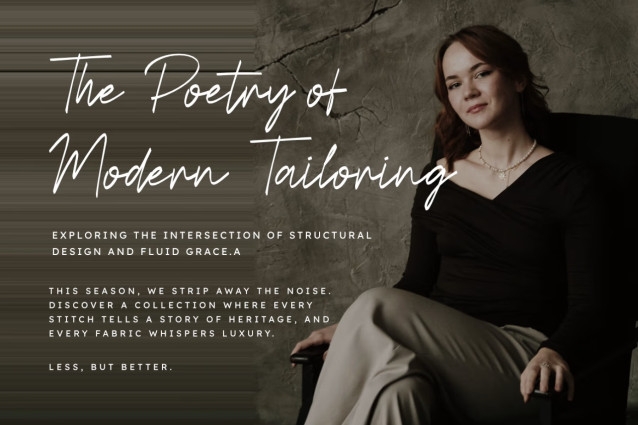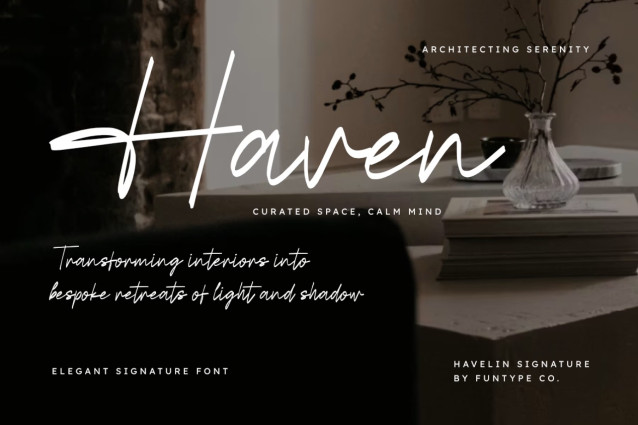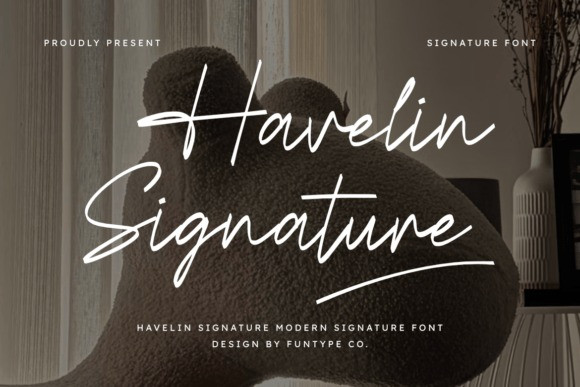
Havelin Signature Font
Havelin Signature Font – a magnificent contemporary signature script typeface crafted to enhance intimate and riveting typography. Admired for its graceful composition and organic flow, Havelin Signature emerges as the ultimate choice for luxurious wedding invites, distinctive photography watermarks, stylish branding, and contemporary lifestyle logos. Embodying purity and refinement, it enriches your visuals with a striking, professional, and emotionally resonant appeal.